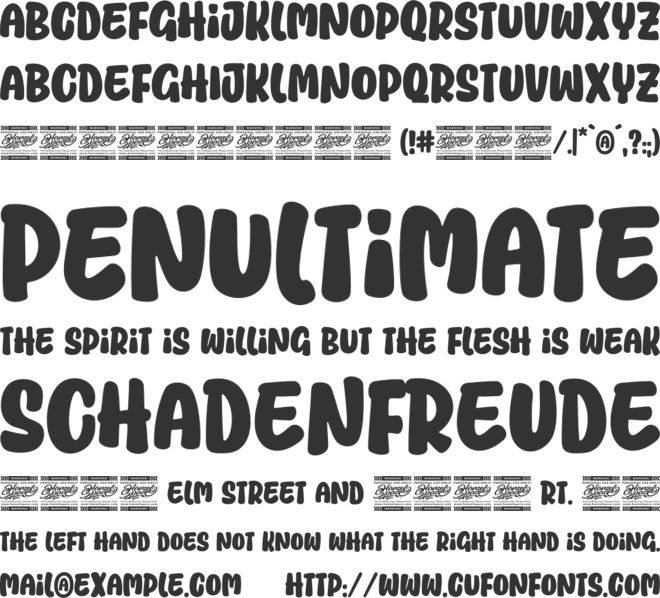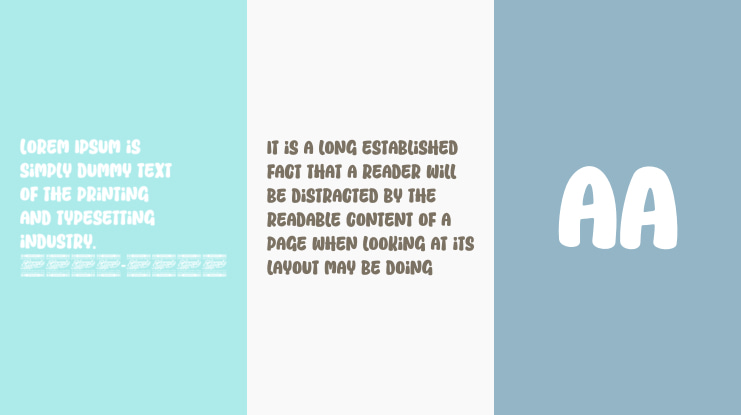
Boiled Shrimp! This is a handwritten font I created for unique characters. It’s slightly rounded and very beautiful.
It includes alternate letters for uppercase and lowercase letters Aa-Zz. It looks great for logos, quotes, art, signage,
titles, packaging, label and any handcrafted touch.
Boiled Shrimp was designed for personal characters such as strong, confidence, dynamic, readable,
Energic, dynamic, etc.
– Full Set of standard alphabet and punctuation
– Multilingual Characters (ÁÂÄÀÅÃÆÇÐÉÊËÈÍÎÏÌÑÓÔÖÒØÕÚÛÜÙẂŴẄẀÝŶŸỲ áâäàåãæçðéêëèíîïìñóôöòøõœúûüùẃŵẅẁýŷÿỳ€£¥)